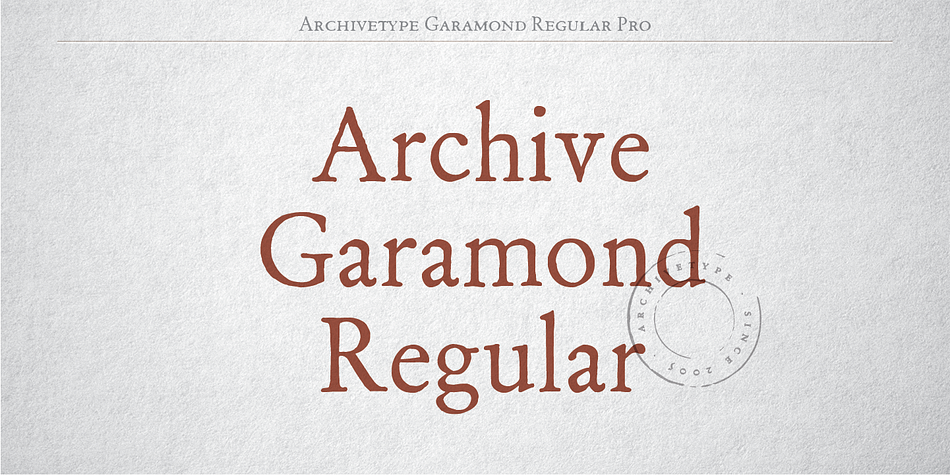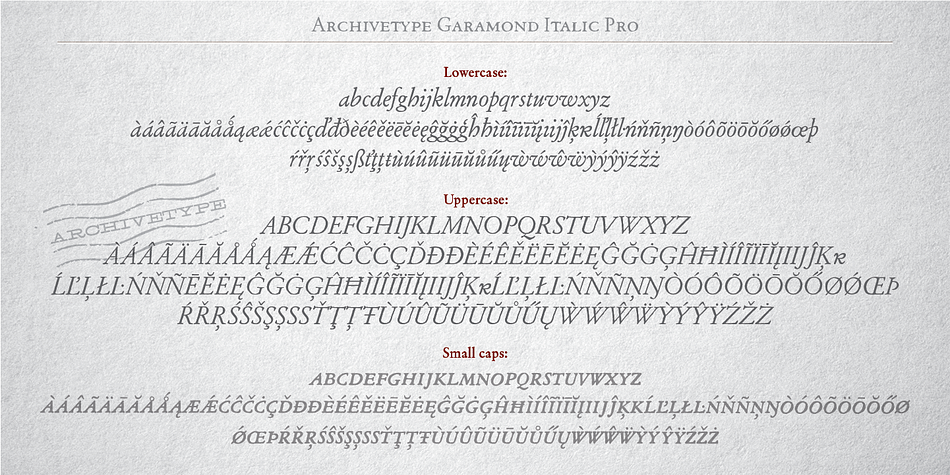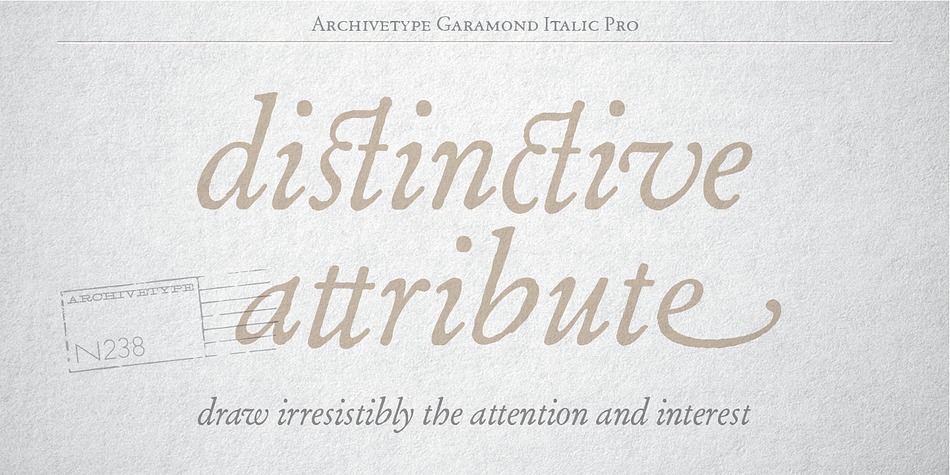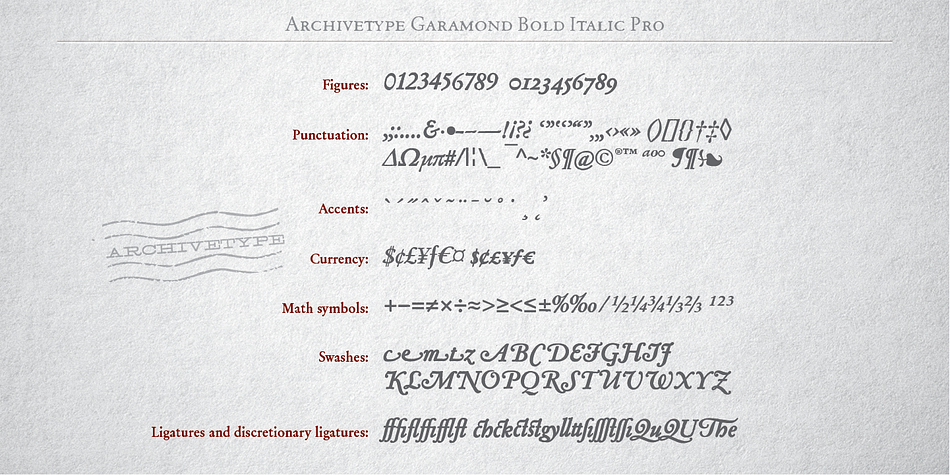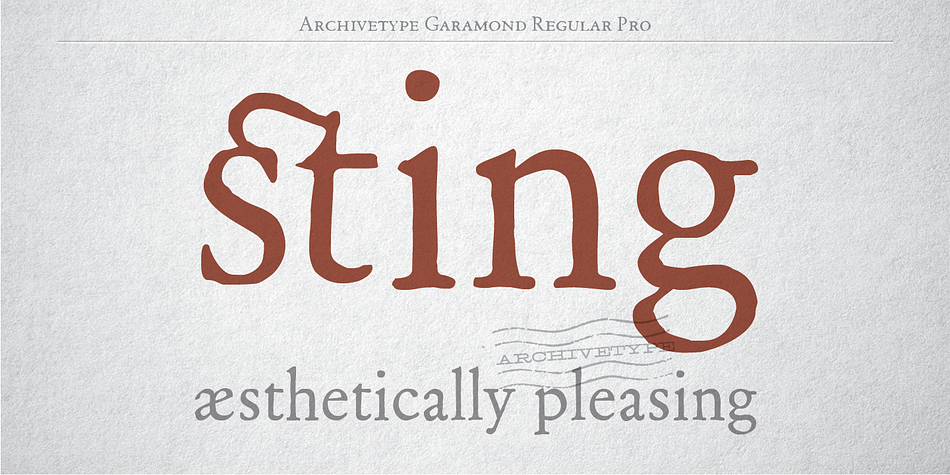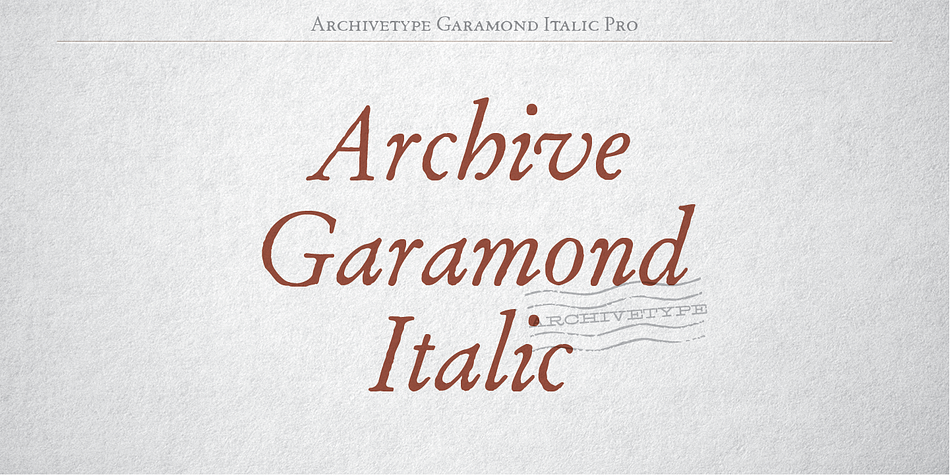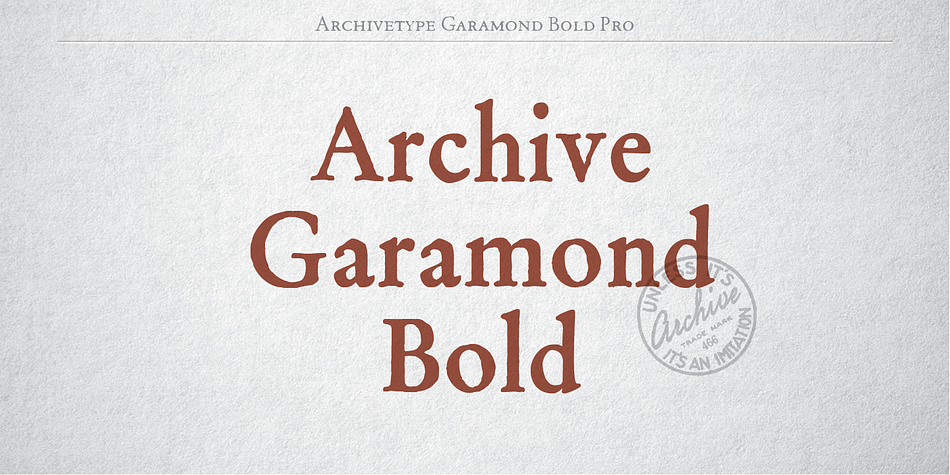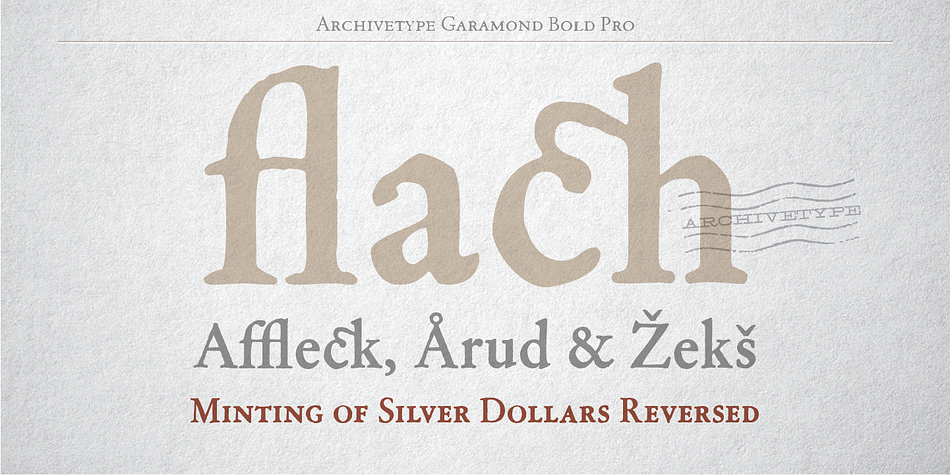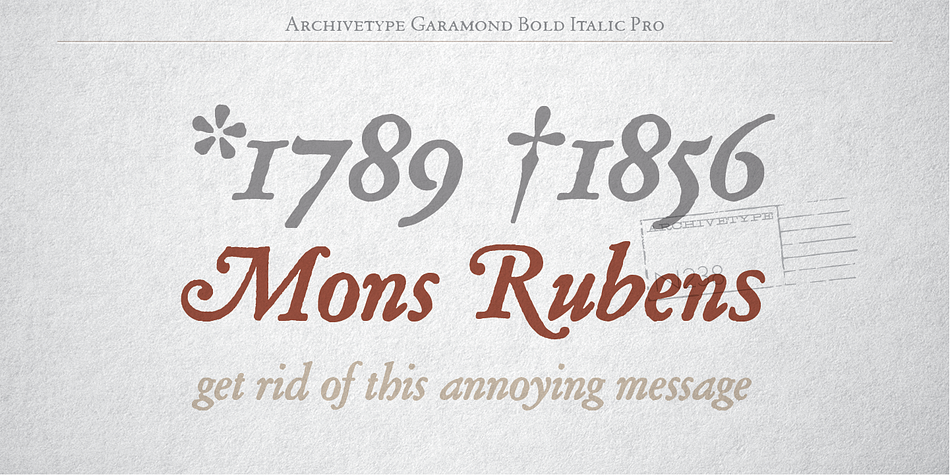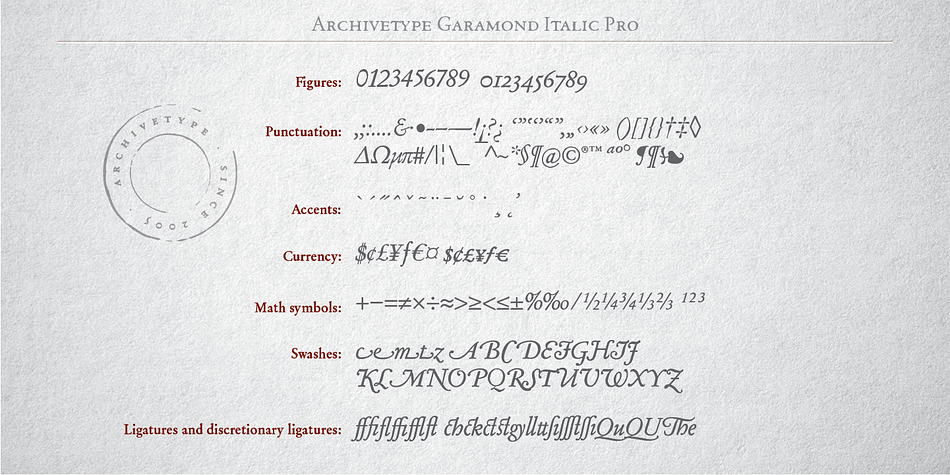
Designed by Matevz Medja, Archive Garamond Pro is a serif font family. This typeface has four styles and was published by ArchiveType.
Archive Garamond is a typeface roughly based on the designs of Claude Garamond (ca. 1480 – 1561) , a French publisher and a leading typeface designer of that period. Garamond’s influence on type design is reflected in many typefaces that are today known under different commercial names.
While the majority of contemporary digital interpretations of the “Garamond types” are cleaner and more polished versions of that genre, Archive Garamond tries to keep the rough nature which was typical in the early days of printing. Archive Garamond has a rather unique, distinctive temperament which is even more emphasized with the preserved non-uniformity, such as irregular glyph shapes or a variable baseline.
Although Archive Garamond was clearly made to be used for display sizes it works surprisingly well in text.
The Pro version of Archive Garamond contains fully working advanced OpenType features:
- small caps
- oldstyle figures
- standard ligatures
- discretionary ligatures
- swash capitals
- historical forms
- stylistic alternatives